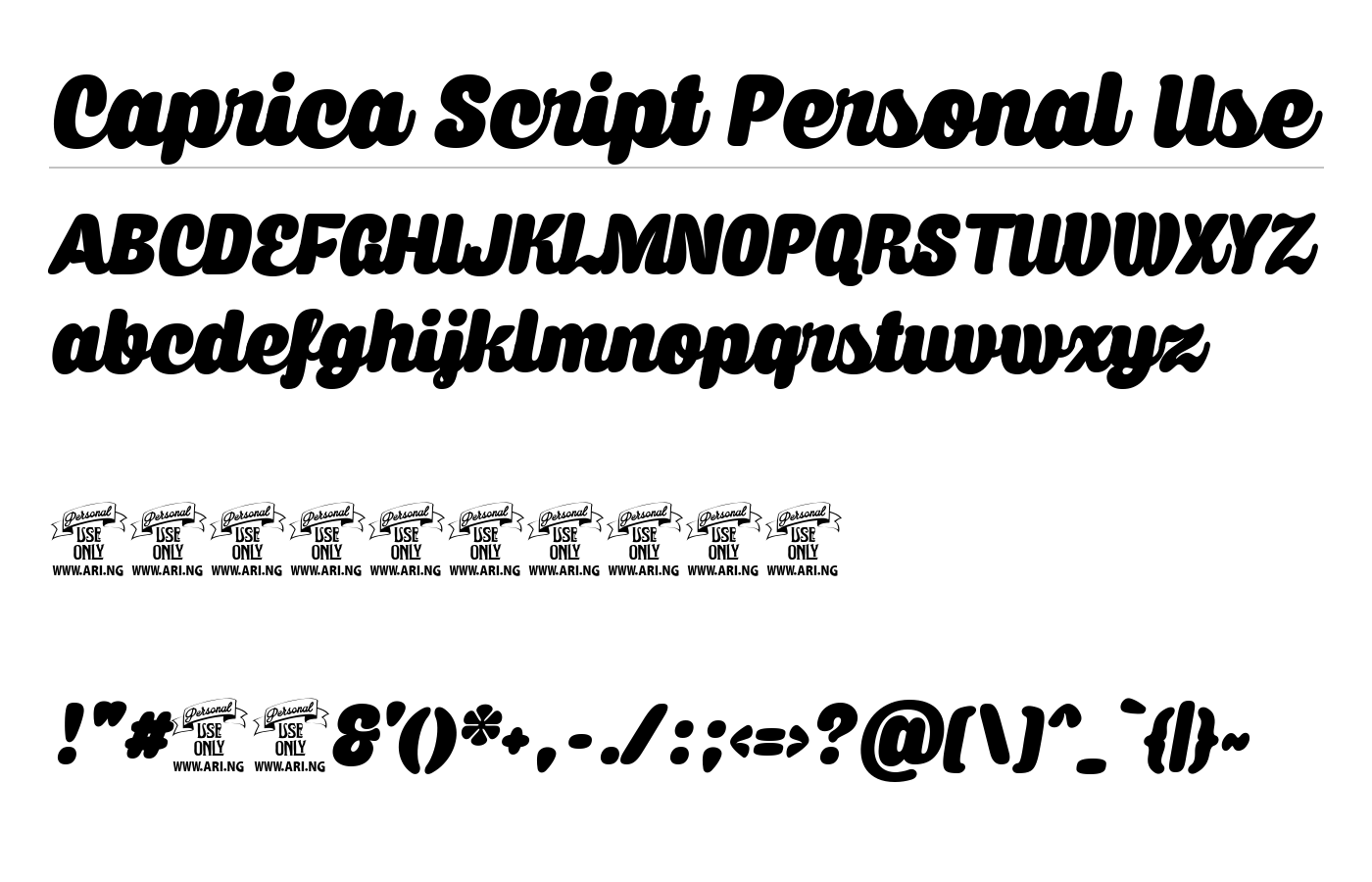
Caprica Script Personal Use is a bold, playful script font featuring smooth, rounded strokes that give it a friendly and approachable vibe. Its flowing letterforms with moderate contrast and a strong presence make it ideal for casual branding, eye-catching headlines, and creative projects that benefit from a warm, inviting touch. This font works especially well for logos, posters, and packaging where a lively, informal style is desired.
Caprica Script Personal Use Font
About Caprica Script Personal Use Font
| Font family | Caprica Script Personal Use Font |
| Designer | MÂns Greb‰ck |